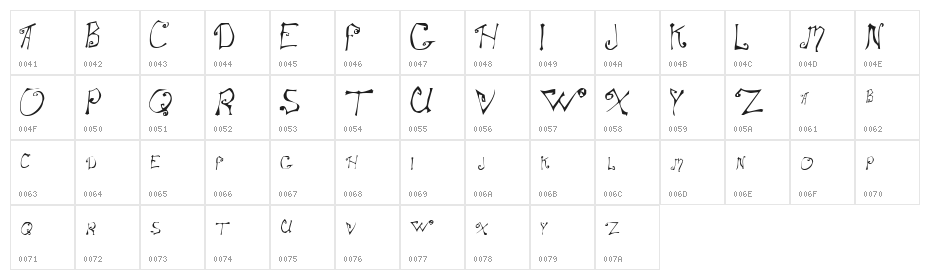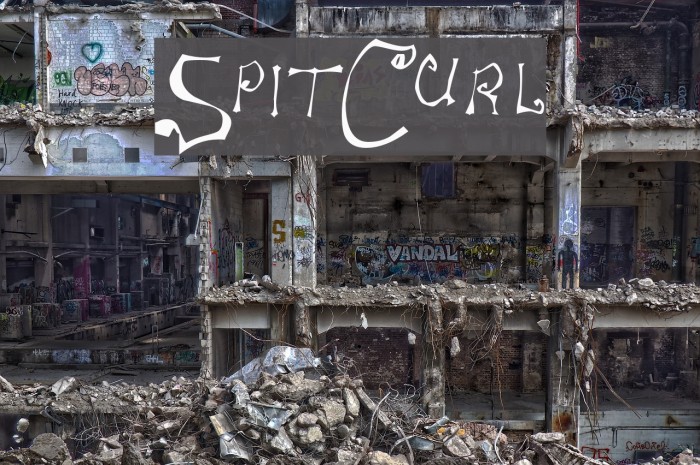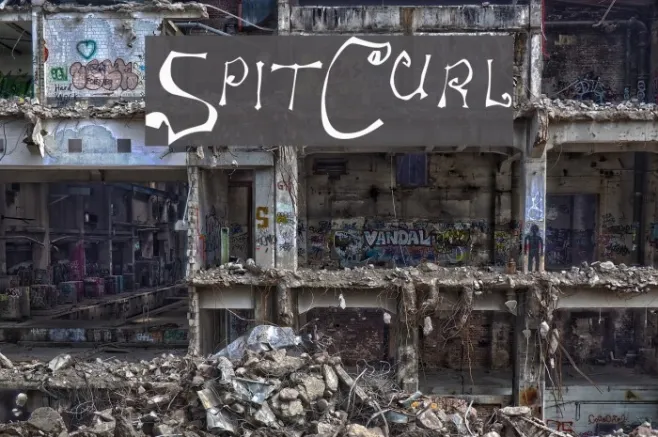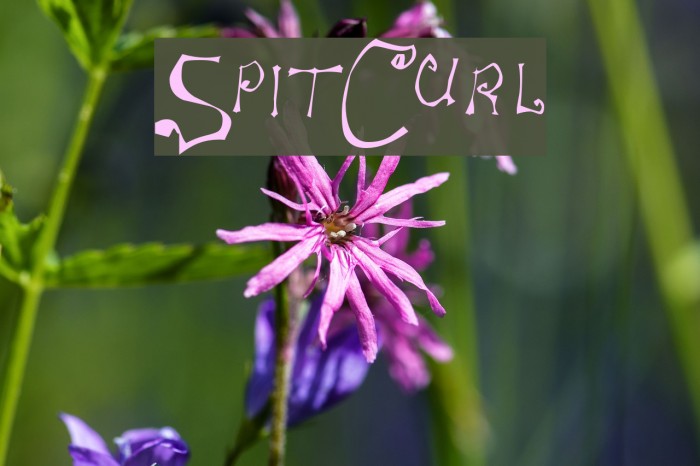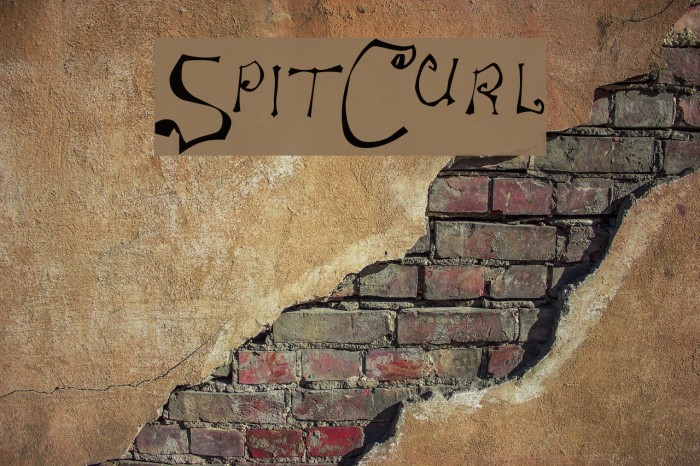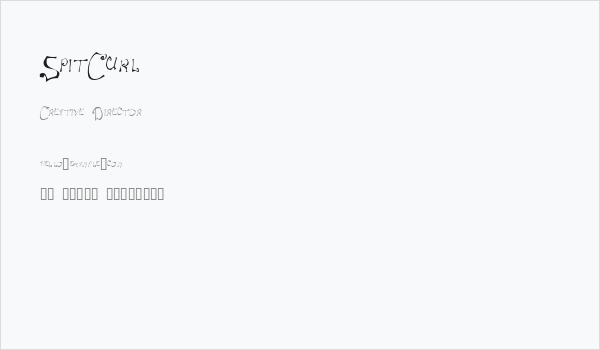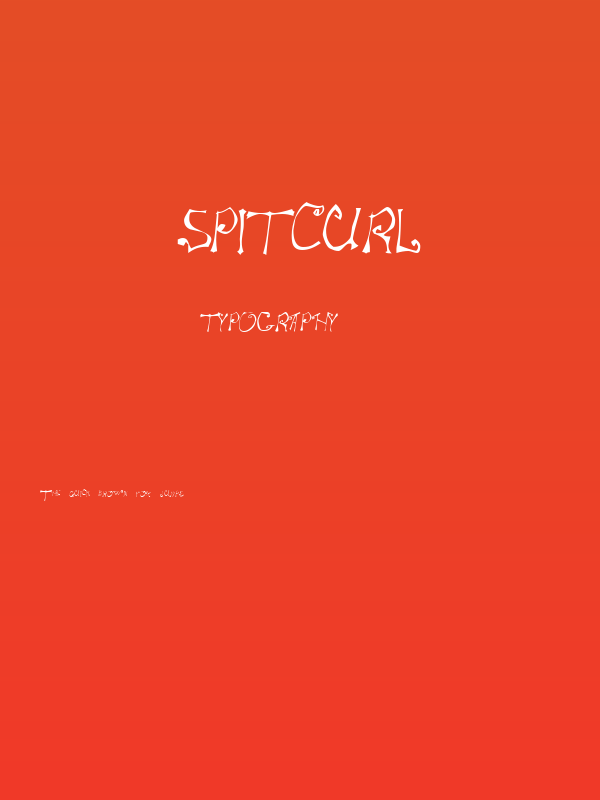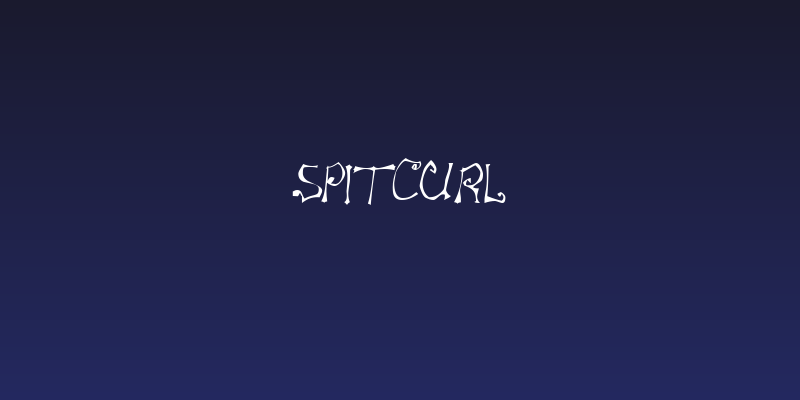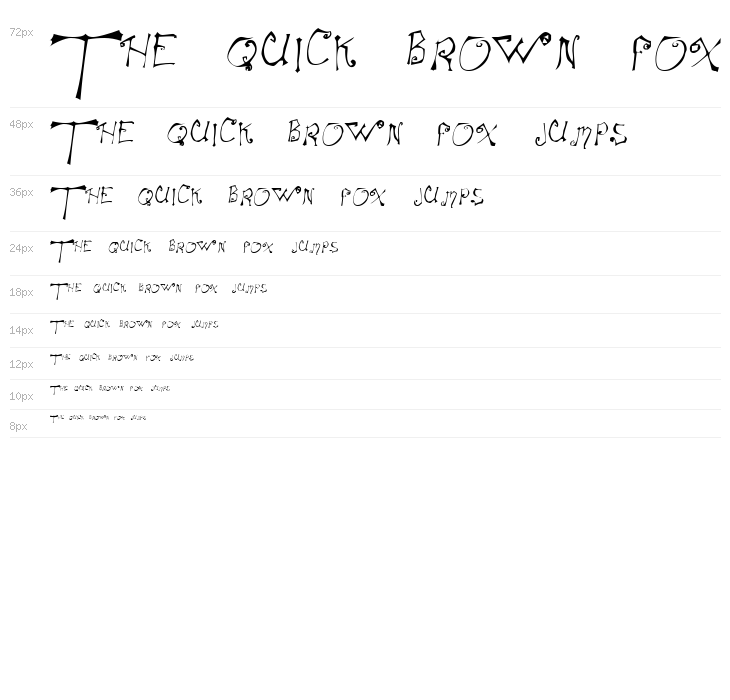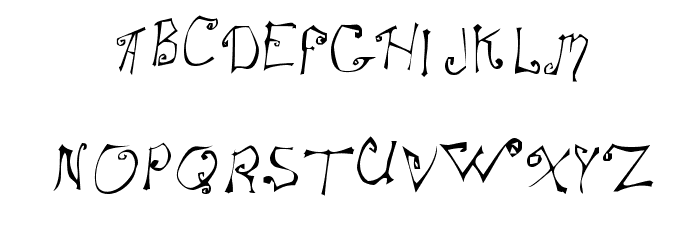
SpitCurl Font
SpitCurl Description
This font features a whimsical and playful design with a unique twist on each character. The letters are adorned with curls and swirls, giving them a lively and dynamic appearance. The uppercase and lowercase letters maintain a consistent style, with exaggerated serifs and decorative elements that add a sense of movement. The font's overall aesthetic is both artistic and unconventional, making it stand out in any design. The characters are well-spaced, ensuring readability while maintaining their decorative flair. This font is perfect for projects that require a touch of creativity and individuality.
| Use Case | Headlines, Logos, Artistic projects |
| Proposed Projects | Ideal for greeting cards, invitations, posters, and any design that needs a playful and artistic touch. |